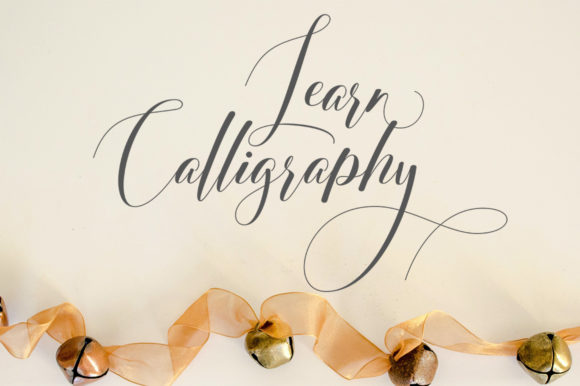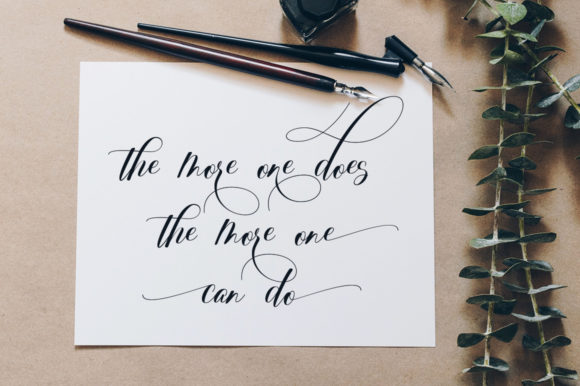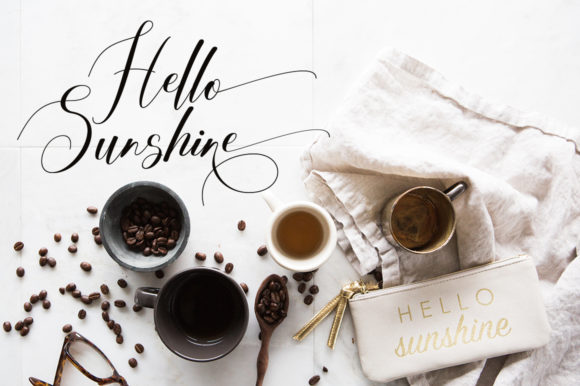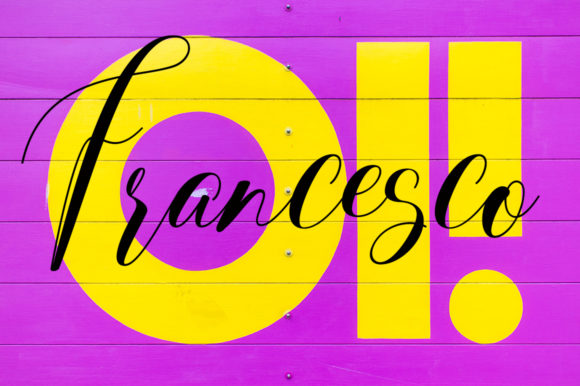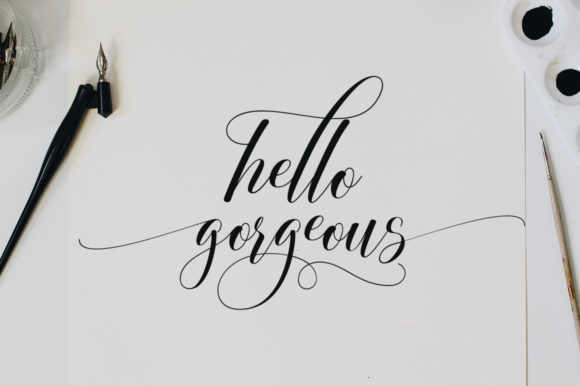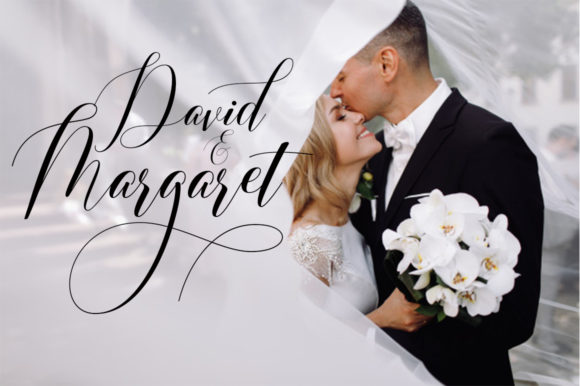
Brittany Coleman Font
About Brittany Coleman Font
Brittany Coleman is a graceful and timeless handwritten font. Get inspired by its authentic charm and add it to your most favorite projects! Brittany Coleman looks magical on both formal and informal designs, from wedding and birthday invitations, to greeting cards and so much more!